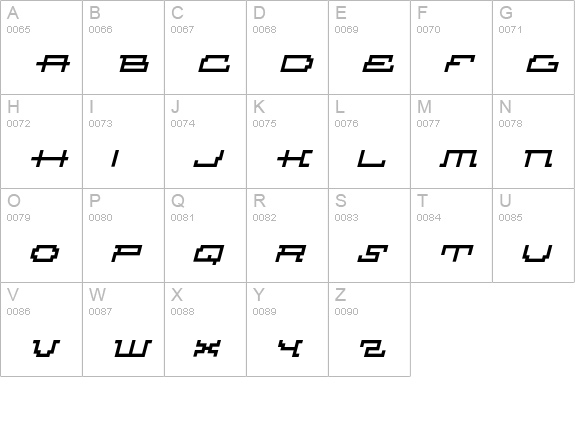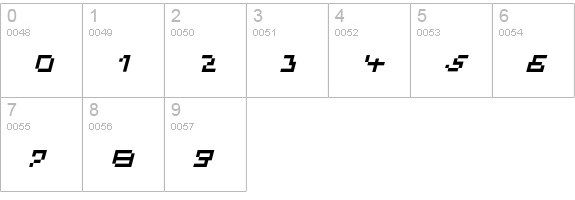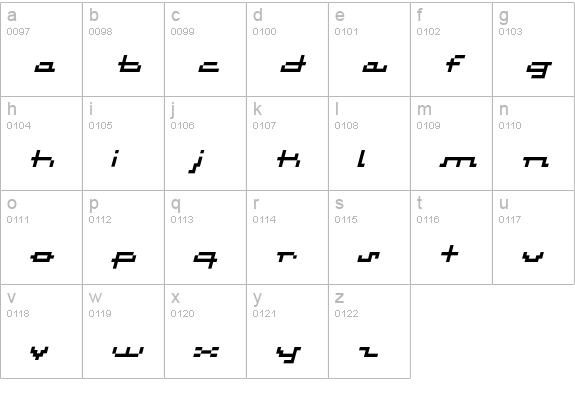
The Atomic-InlineItalic font is a sleek and modern typeface that brings a touch of sophistication to any design project. Its unique inline style adds a dynamic and eye-catching element to your text, making it stand out from the crowd. The italicized letters give a sense of elegance and movement, perfect for conveying a sense of creativity and flair. What makes the Atomic-InlineItalic font even more appealing is that it is available for free download at FontsMarket.com. This means that you can easily access this stylish font without any cost, making it a great choice for budget-conscious designers looking to enhance their work with a touch of class. Don't miss out on the opportunity to elevate your designs with the Atomic-InlineItalic font, now just a click away at FontsMarket.com.